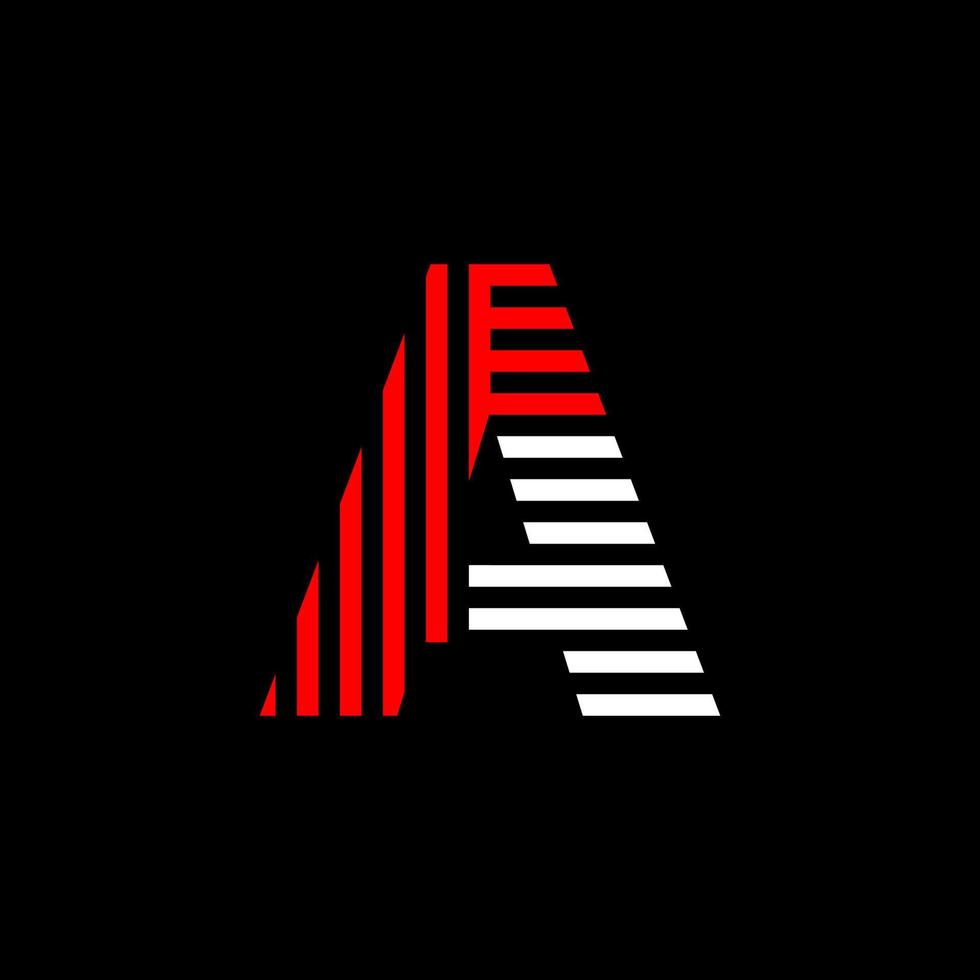
Abstract Letter A Line. Transition color linear logo. Linear modern lettering lines. Font alphabet template. Set logo thin line clean style, black background. Pro Vector